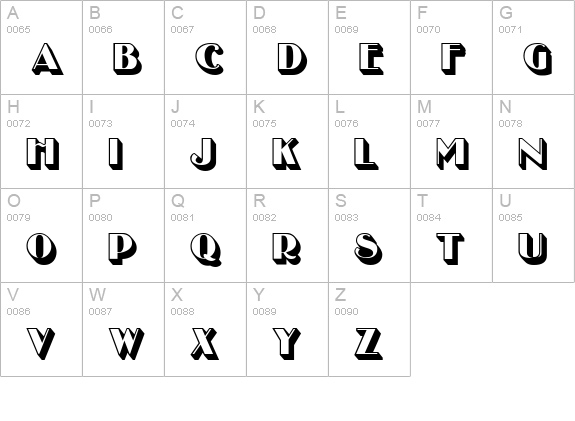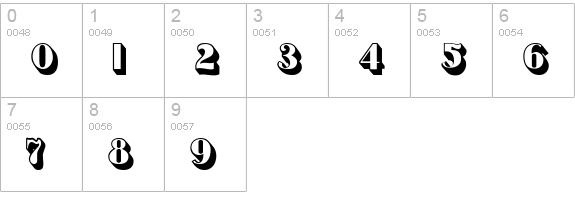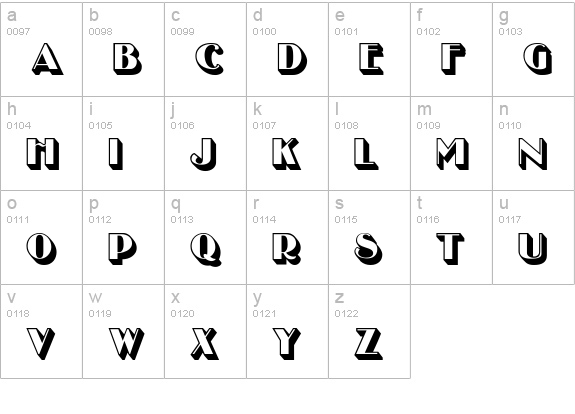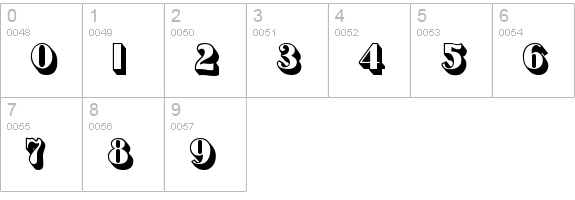
UncleBobMF-Shadow Font Details
UncleBobMF-Shadow font is a bold and eye-catching typeface that will add a touch of mystery and intrigue to any design. With its unique shadow effect, this font is perfect for creating attention-grabbing headlines, titles, and logos. Designed with a perfect balance between elegance and edginess, UncleBobMF-Shadow font is sure to make your designs stand out from the crowd. Its clean lines and sharp edges give it a modern and contemporary feel, while the shadow effect adds depth and dimension. One of the best things about UncleBobMF-Shadow font is that it is available for free. Yes, you read that right! This amazing font can be freely downloaded at FontsMarket.com, making it accessible to designers and enthusiasts alike. Whether you're working on a logo, a poster, a website, or any other creative project, UncleBobMF-Shadow font will bring your designs to life. Its versatility allows it to be used in a variety of contexts, from fashion and beauty to technology and gaming. So why wait? Unlock your creativity and give your designs the extra edge they deserve with UncleBobMF-Shadow font. Download it for free now at FontsMarket.com and start making a statement with your typography.